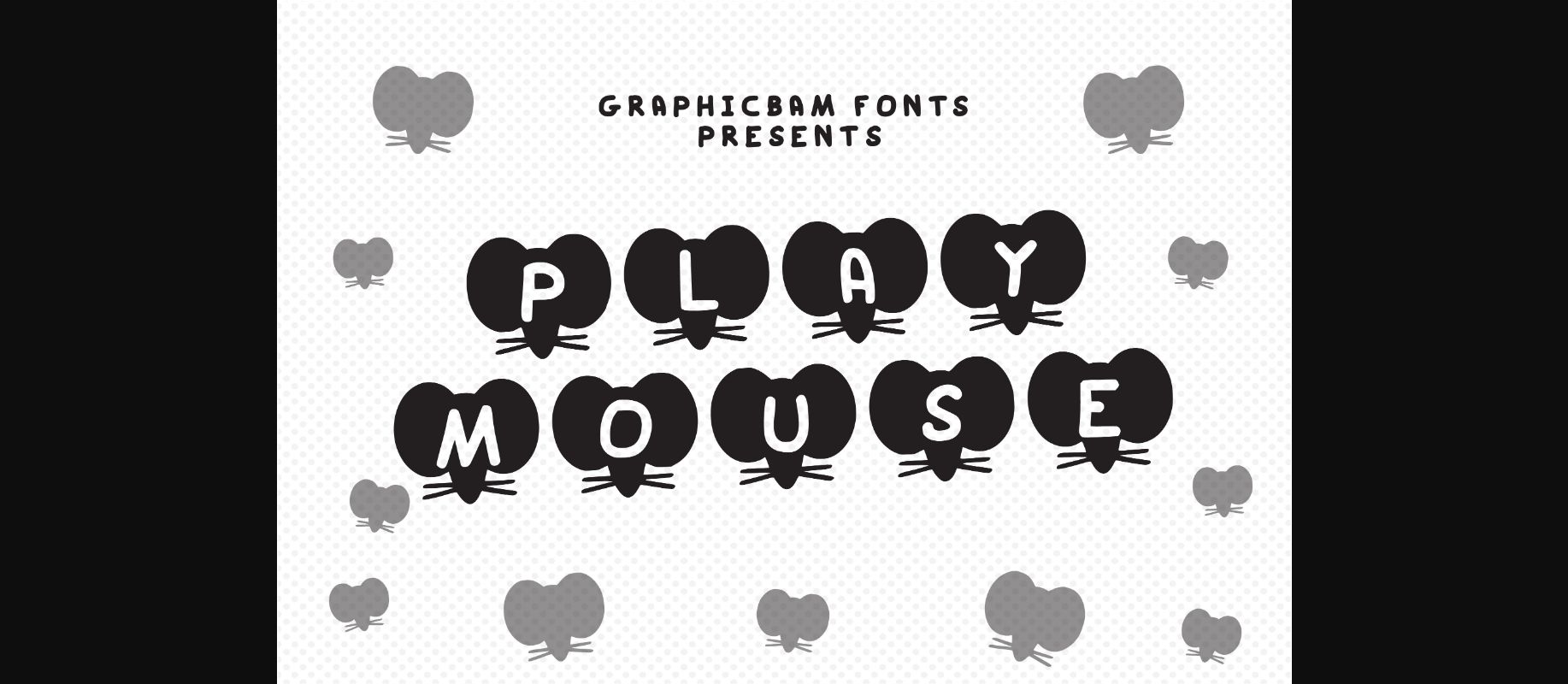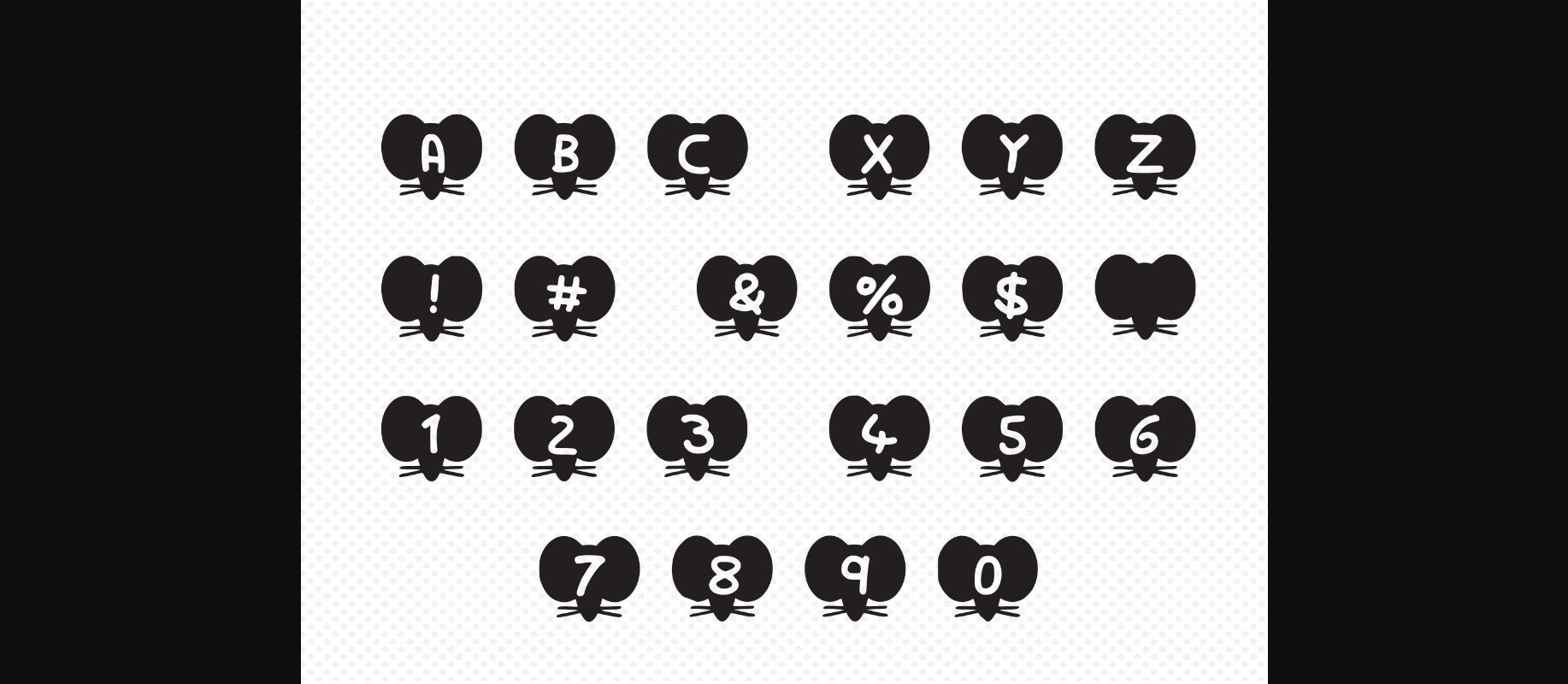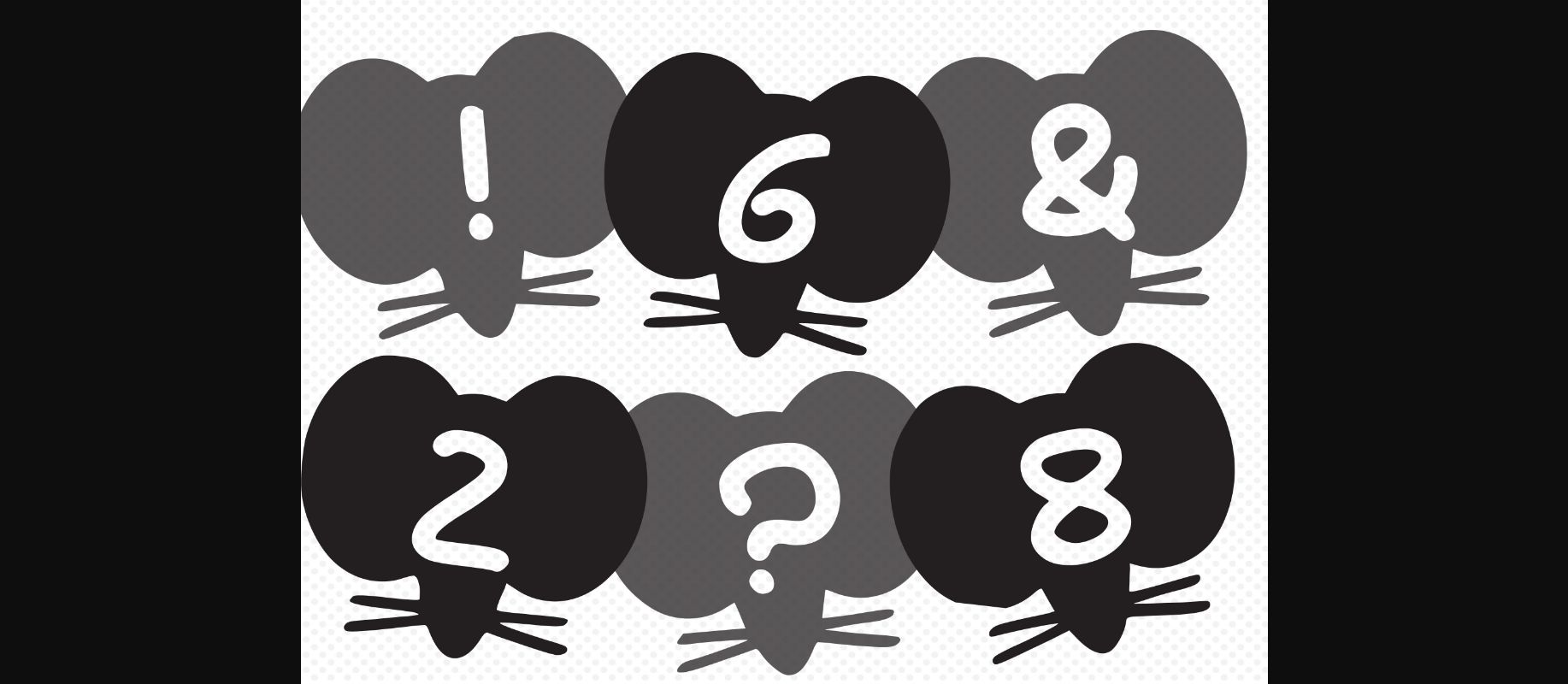
About Play Mouse Font
Play Mouse – a playful and fun decorative font to suit your craziest design ideas! The characters look lovely on banners, headlines, covers, or other projects that need to stand out.